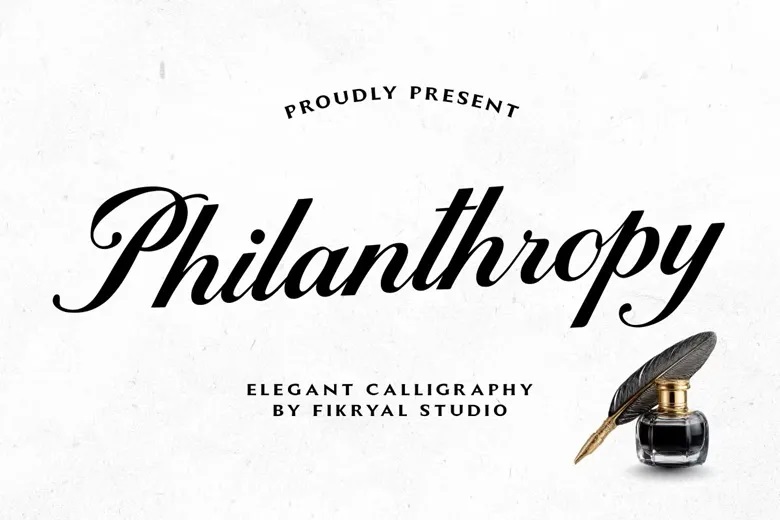
Philanthropy Font
Philanthropy is a new calligraphy typeface written in elegant shapes and flowing lines and extra forms to provide the missive with sophistication and style in your innovation efforts. The font fits perfectly well to modern or retro aesthetic designs since there is an artistic description to each of the characters.
Philanthropy font is available in stunning ligatures, expressive alternates, and a large multilingual support to provide the designer with freedom to explore distinctive and perfect lettering studies.
Philanthropy has an elegant calligraphy style and would be suitable to brand, wedding stationery, luxury packaging, logos, designs related to fashion, editorial design and social media content.
Philanthropy Calligraphy Script Font